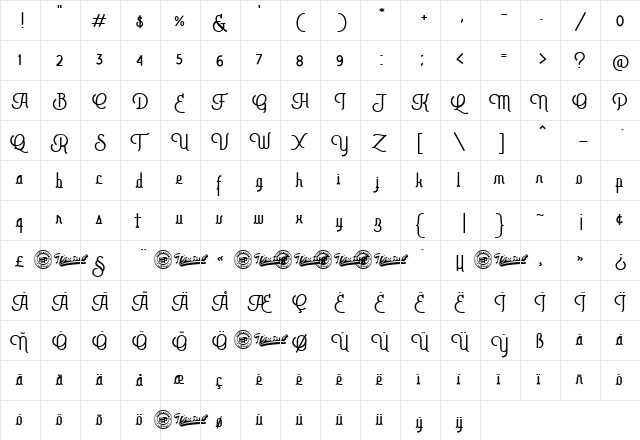
Brotherline Regular
| Foundry | Hendra Pratama |
| Designer | Hendra Pratama |
Design Context for Brotherline Typeface
Brotherline is a composed and adaptable typeface that performs quietly and consistently across a wide range of design contexts.